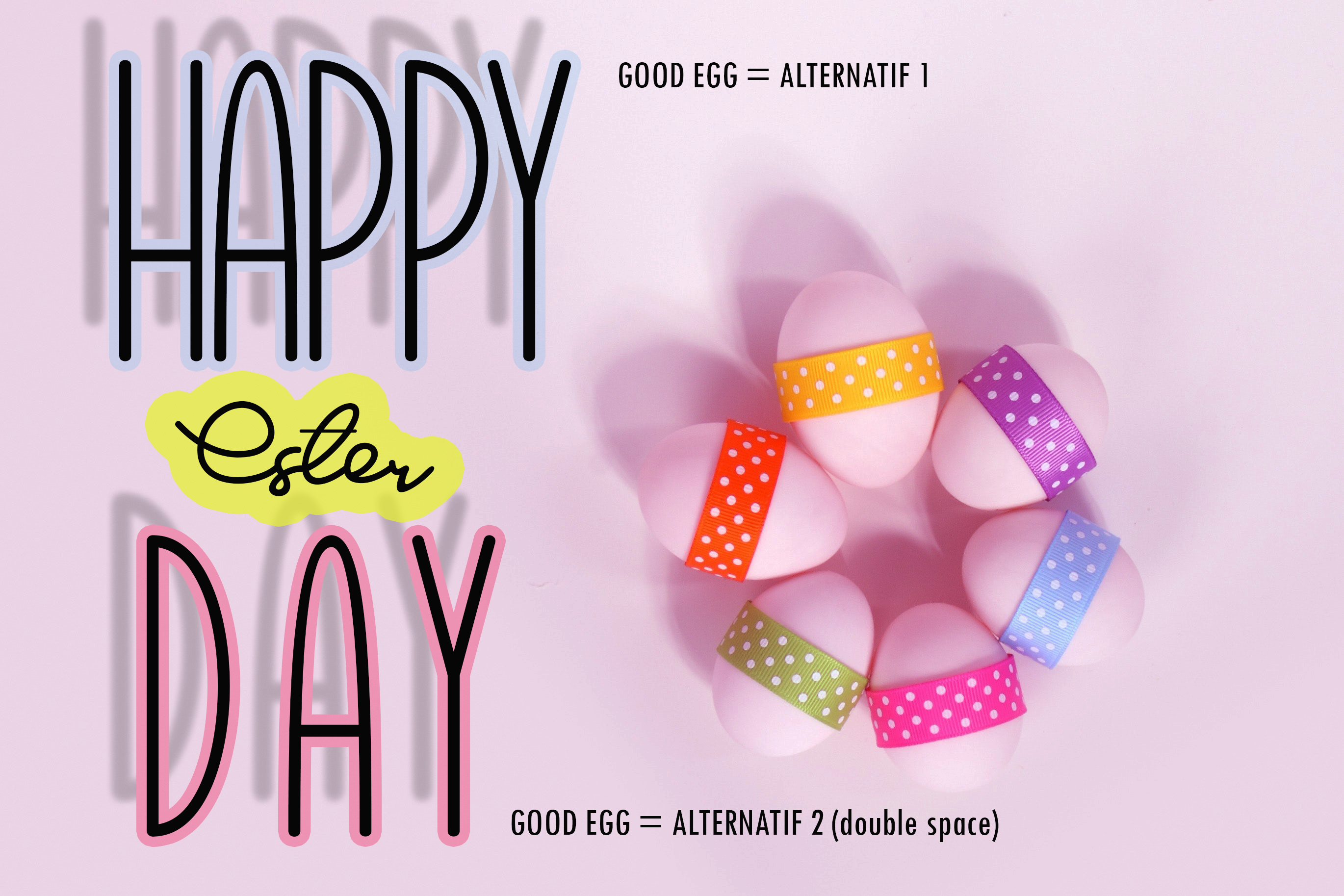
Introducing Good Egg Font: Elevate Your Designs with a Beautiful Sans Serif Font
Are you tired of using the same old fonts in your designs? Look no further! Good Egg Font is a stunning sans serif font that adds a touch of elegance and sophistication to any project. With its unique handwritten appeal, Good Egg Font is perfect for designers and crafters looking to elevate their creative endeavors.
What Makes Good Egg Font Special?
Good Egg Font is a beautiful and tall sans serif font that boasts a distinctive handwritten charm. Its sleek and modern design makes it perfect for a wide range of applications, from branding and advertising to packaging and digital media. Whether you’re working on a logo, brochure, or social media post, Good Egg Font is sure to make your design stand out.
Four Styles to Suit Your Needs
Good Egg Font comes in four stylish variations, allowing you to add some variety and customization to your designs. With multiple styles to choose from, you can create a cohesive look or mix and match to add visual interest. The four styles include:
- Style 1: A classic and clean sans serif font perfect for headings and titles
- Style 2: A slightly more condensed version for use in tighter spaces
- Style 3: A bold and eye-catching variation for making a statement
- Style 4: A subtle and elegant script font for adding a touch of sophistication
Why Choose Good Egg Font?
So why choose Good Egg Font over other fonts on the market? Here are just a few reasons:
- Unique and distinctive design: Good Egg Font has a one-of-a-kind look that will set your designs apart from the crowd
- Highly versatile: With four styles to choose from, Good Egg Font can be used in a wide range of applications and industries
- Easy to read: Despite its elegant design, Good Egg Font remains highly legible, making it perfect for use in body text and captions
- Customizable: With multiple styles to choose from, you can mix and match to create a unique look that suits your brand or project
How to Use Good Egg Font in Your Designs
Good Egg Font is incredibly easy to use and can be incorporated into your designs in a variety of ways. Here are a few ideas to get you started:
- Logos and branding: Use Good Egg Font as a standalone logo or pair it with other fonts to create a unique brand identity
- Headings and titles: Add a touch of elegance to your headings and titles with Good Egg Font’s classic and clean design
- Body text and captions: Use Good Egg Font’s highly legible design for body text and captions that need to be easy to read
- Social media graphics: Add a professional touch to your social media graphics with Good Egg Font’s sleek and modern design
In conclusion, Good Egg Font is a beautiful and versatile sans serif font that is perfect for designers and crafters looking to elevate their creative projects. With its unique handwritten appeal, four stylish variations, and highly legible design, Good Egg Font is sure to become a staple in your font collection. So why wait? Download Good Egg Font today and start creating stunning designs that stand out from the crowd!